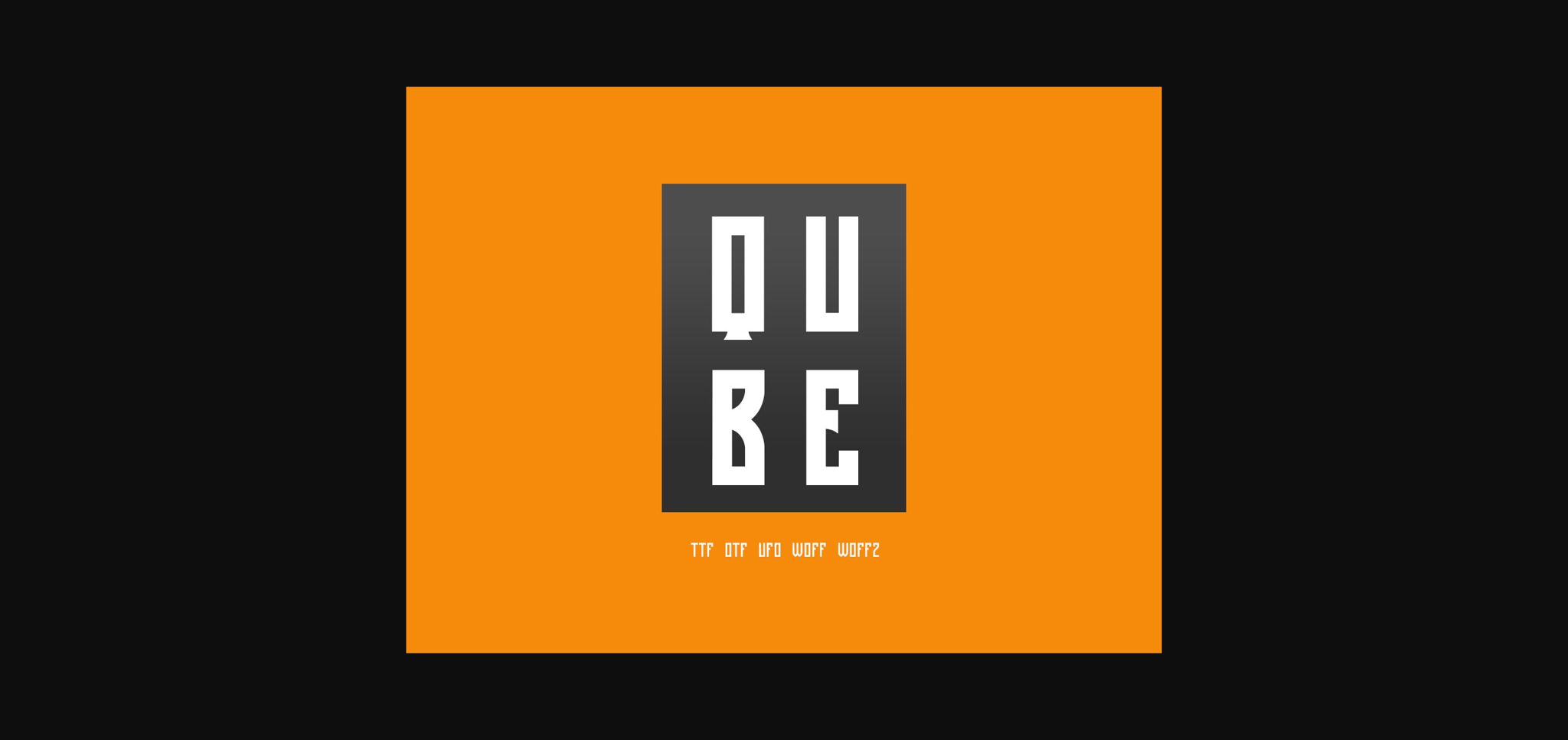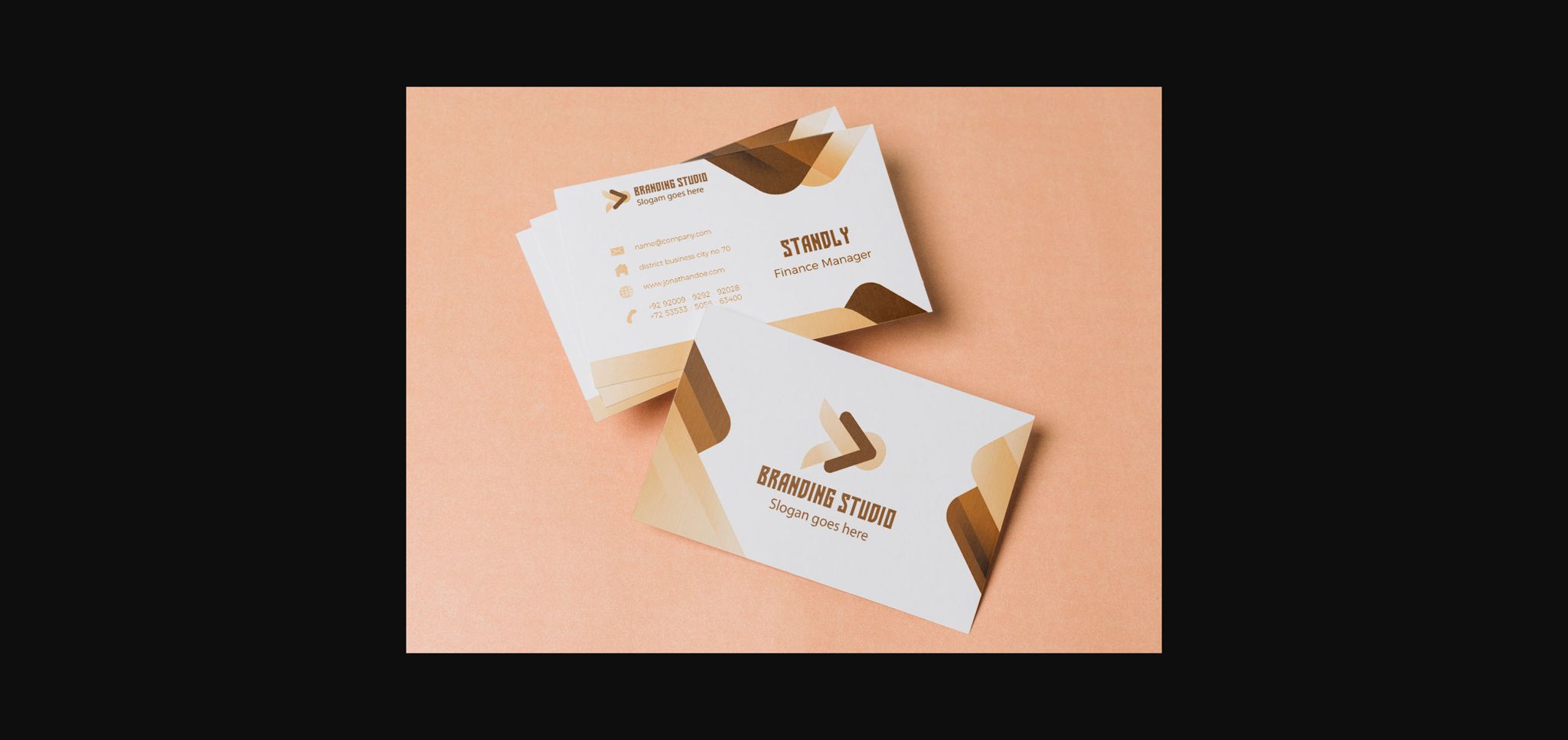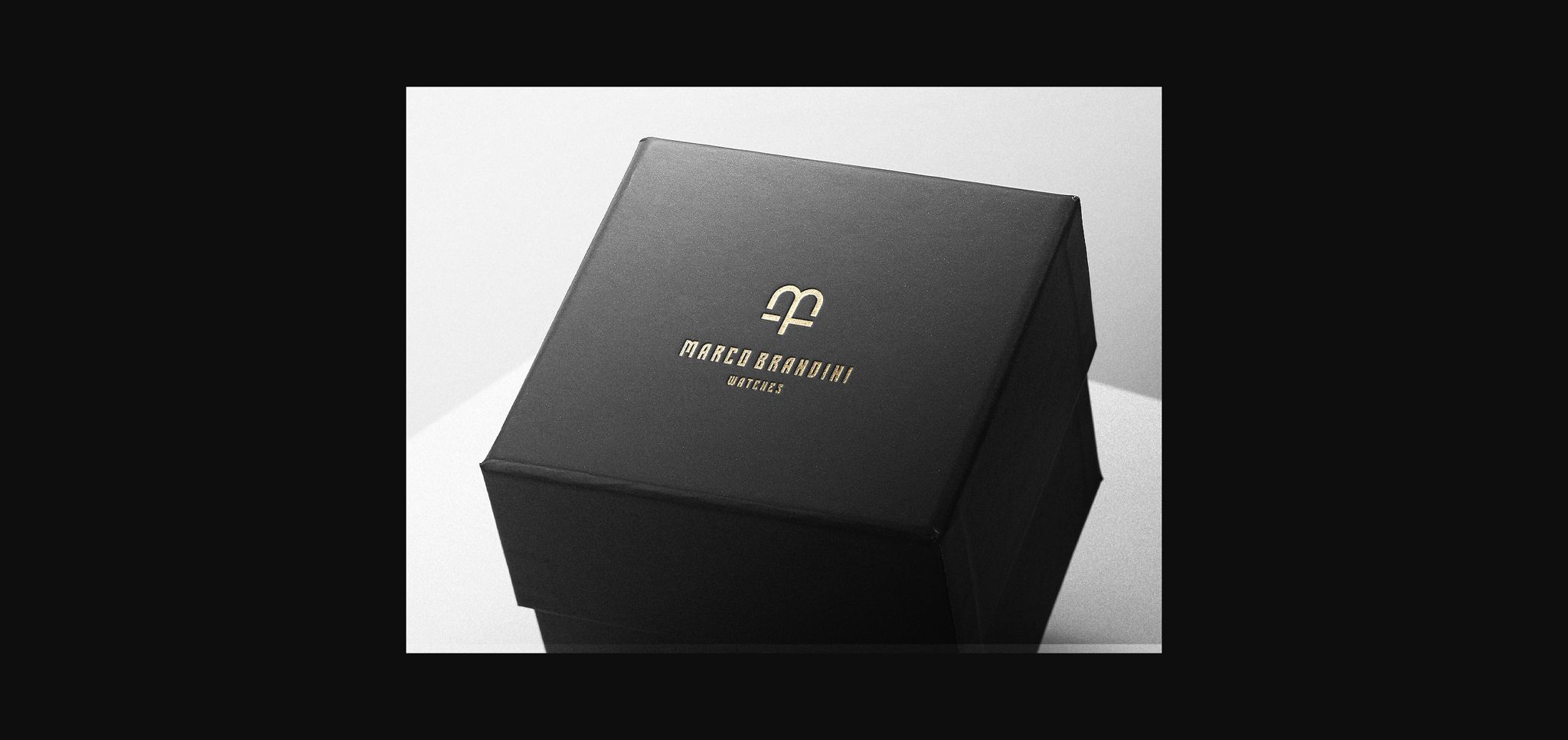
Qube Font
About Qube Font
Qube is a modern sans serif font. This font is perfect for headlines, big text, branding, logotypes & display usage. It is also suitable for creating outstanding logos, promotional content and marketing graphics that can really grab attention from your visitors.